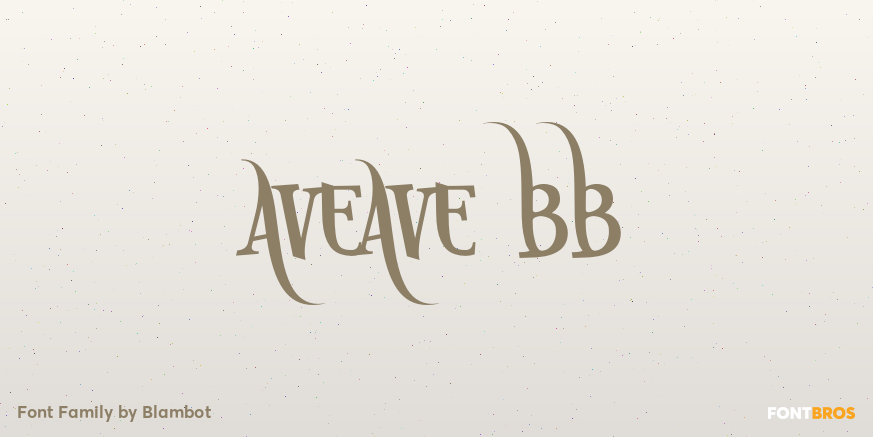
HomeFont BrosHistoricalAveAve BB Historical AveAve BB FacebookXPinterestWhatsApp 1 of 1 About AveAve BB Mix and match the upper and lowercase keys to access swash and non-swash letters in this unconventional serif font with a plethora of European characters.  DOWNLOAD ON FONT BROSThis font is sold and delivered by Font Bros. Font Canyon may earn a commission if you buy through this link. People also explored Oceania Font Lieberates Script Font Baby Bday Font Unicorn Kidi Font Abcd Cursive Lined2 Font Holiday Font HUDSON NY FAMILY Font Qulegaf Font Jasmine Font 310 0 TagsAveAve BB Font Previous articleJudgement BNext articleItalian Hand LEAVE A REPLY Cancel reply Comment: Please enter your comment! Name:* Please enter your name here Email:* You have entered an incorrect email address! Please enter your email address here Website: Save my name, email, and website in this browser for the next time I comment. Personal Use Free Adelaide Personal Use Free Read more about this font Breakaway Personal Use Free Read more about this font Arnitta Callina Personal Use Free Read more about this font Arnprior Personal Use Free Read more about this font BLOG Using Fonts in Digital Marketing: Tips to Strengthen Your Brand Identity In the realm of digital marketing, every visual element plays a crucial role in shaping a brand's identity, and fonts are no exception. The... Top 7 Google Fonts Alternatives for Faster and Privacy-Friendly Web Design (2025) Fonts That Capture the Spirit of New York City Transform Your Website: Elevate Your Typography with 7 Best Web Font Generators